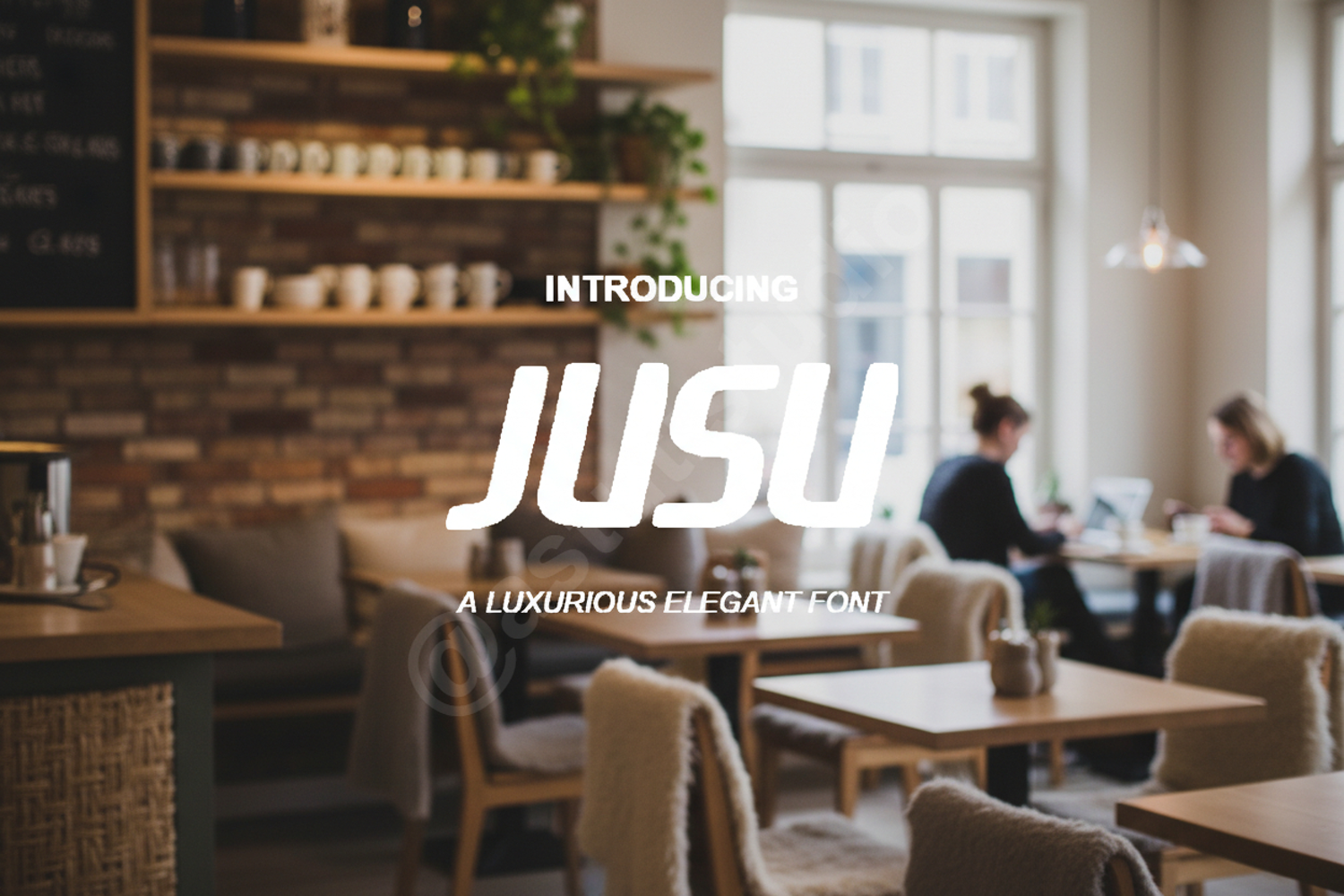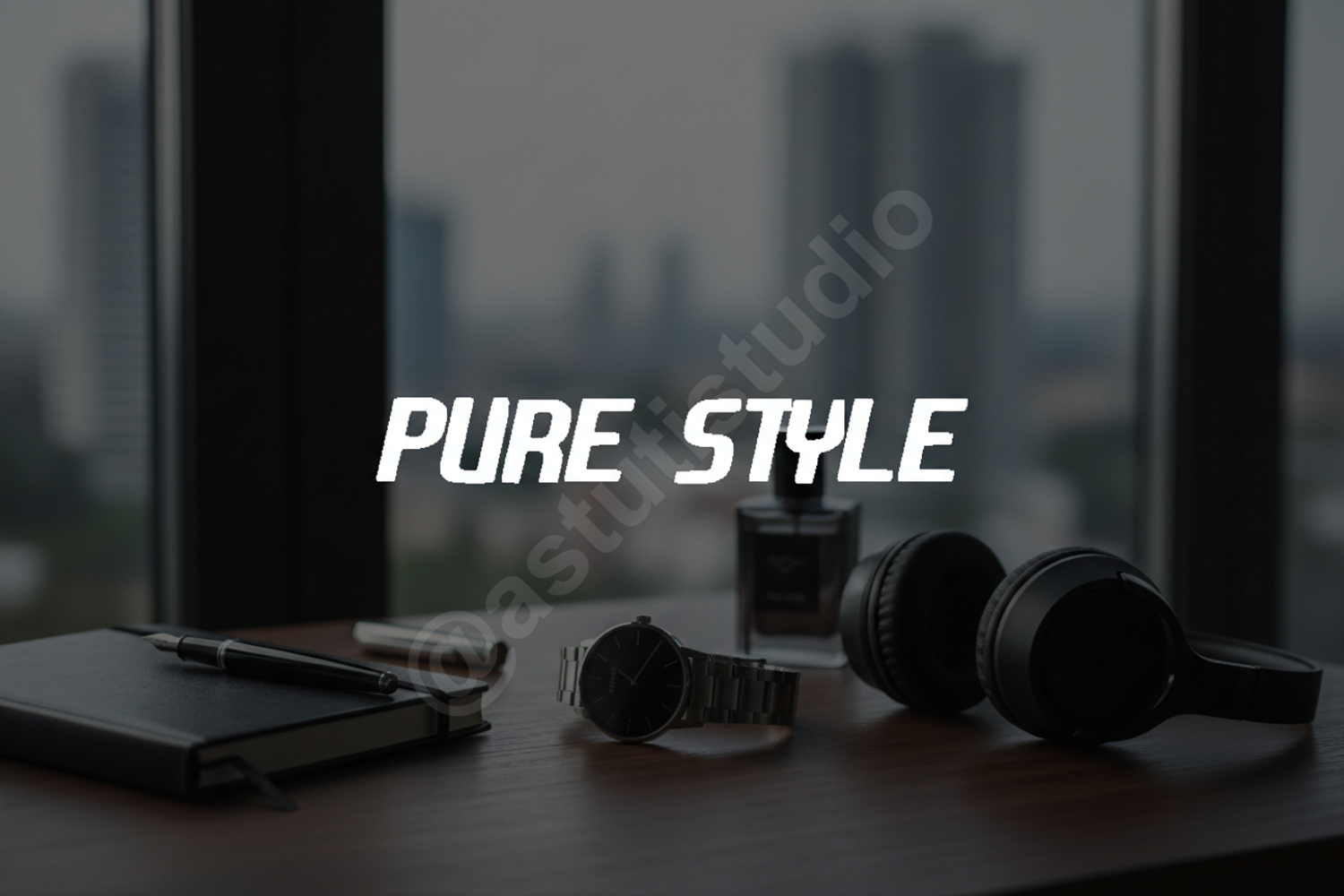
Jusu - Minimalist Modern Sans Serif Typeface
Jusu
Elevate your creative projects with Jusu, a premium minimalist sans serif font meticulously crafted for clarity and modern elegance. Jusu strikes the perfect balance between professional structure and contemporary style, making it an essential addition to any designer's toolkit. Whether you are aiming for a sleek corporate look or a refined lifestyle aesthetic, this typeface delivers exceptional legibility and visual appeal.
- Branding and Visual Identity: Create impactful logos and brand guidelines that stand the test of time.
- Editorial Design: Perfect for clean magazine layouts, book covers, and high-end brochures.
- Web and UI Design: Ensure a seamless user experience with highly legible headers and interface elements.
- Marketing Materials: Enhance social media graphics, advertisements, and promotional banners.
- Stationery and Packaging: Ideal for minimalist product packaging and professional business cards.